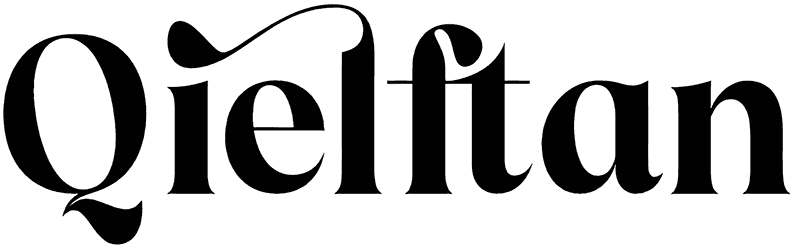
Qielftan Font
Not everyone is lucky enough to have a serif font as classy as Qielftan to handle their typography for them. So take this chance to make sure your words stand for the brand identity by displaying luxury and trendiness at once.
Give your audience something to admire by using Qielftan as your logo font and make your clients proud. If you’re supposed to deliver restaurant posters and book title designs, that’s exactly the kind of job it’ll be perfect for.